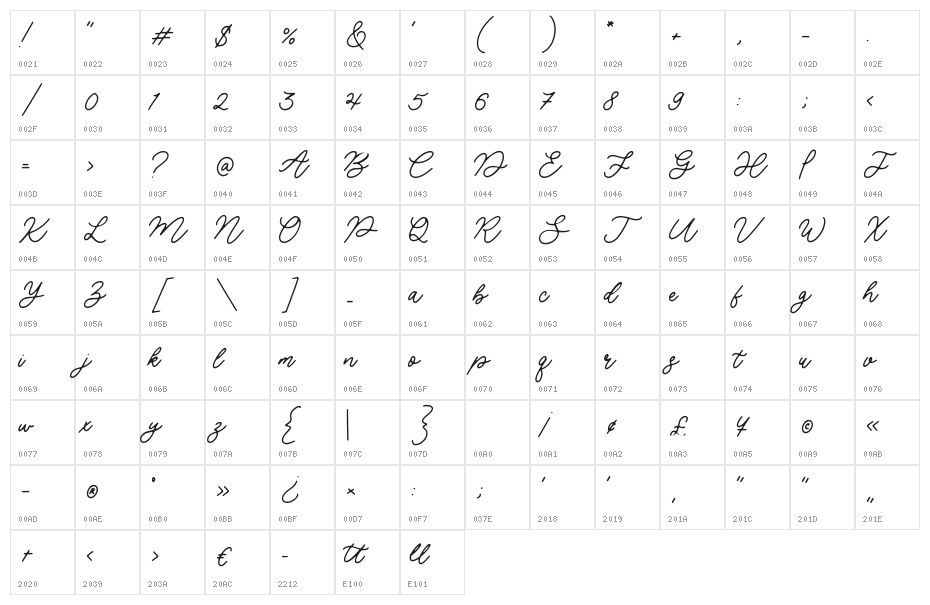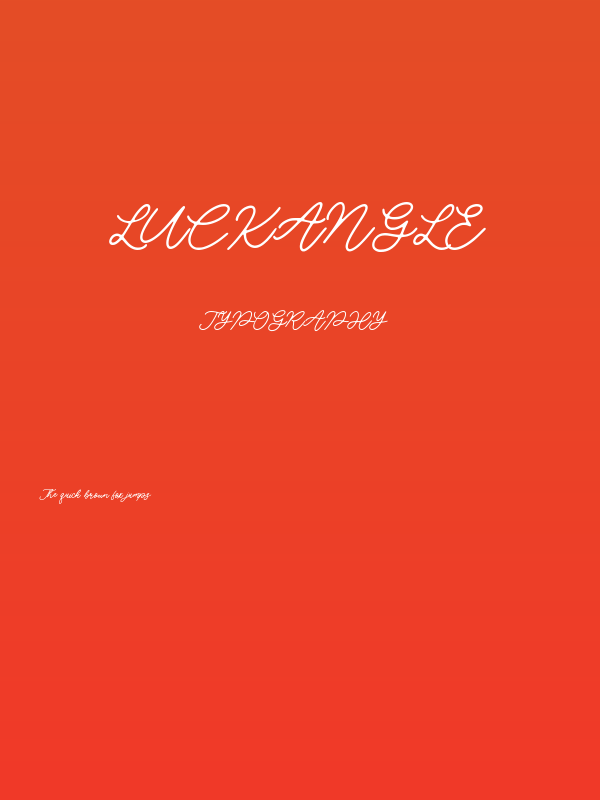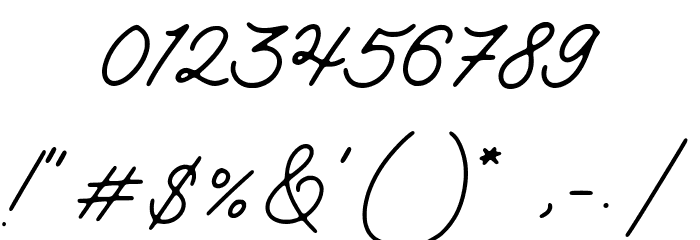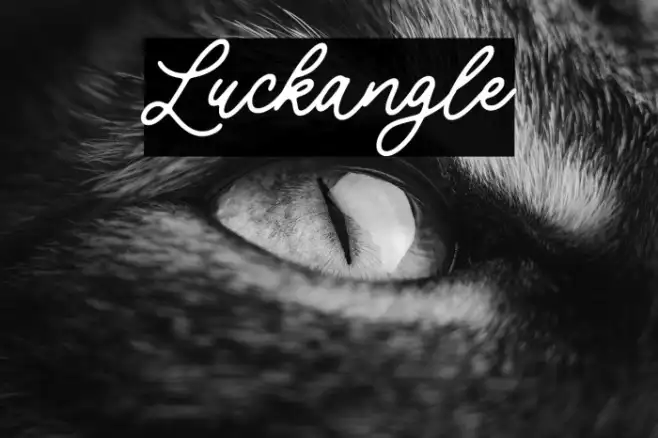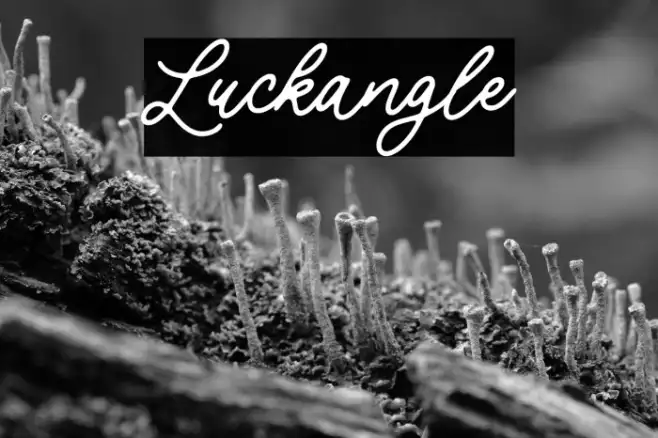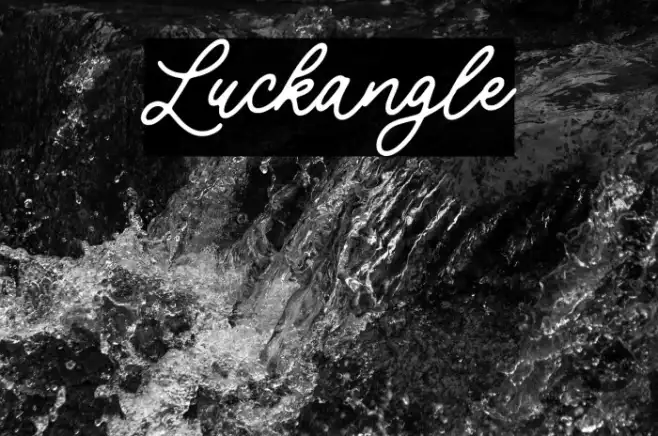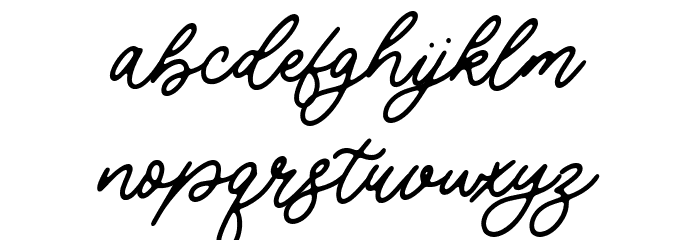
Luckangle Font
Luckangle Description
This elegant script font features a flowing, cursive style with smooth, connected strokes that give it a handwritten appearance. The uppercase letters are ornate and slightly larger than the lowercase, which maintain a consistent flow and balance. Numbers and special characters are crafted to match the overall aesthetic, with a graceful and fluid design. The font's curves and loops are well-defined, providing a sense of sophistication and charm. It is ideal for projects that require a personal touch, such as invitations, greeting cards, and branding materials. The font's style is both classic and modern, making it versatile for various design needs.
| Use Case | Invitations, Greeting cards, Branding |
| Proposed Projects | Ideal for wedding invitations, greeting cards, personal branding, and elegant logos. |